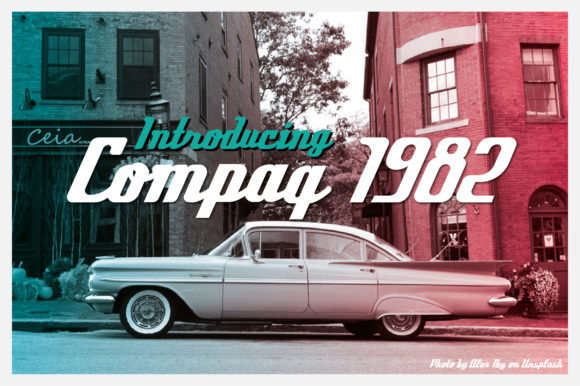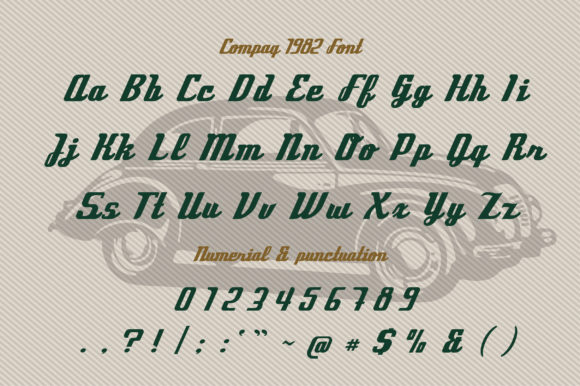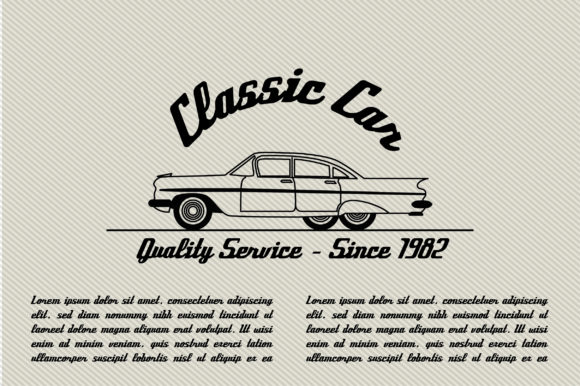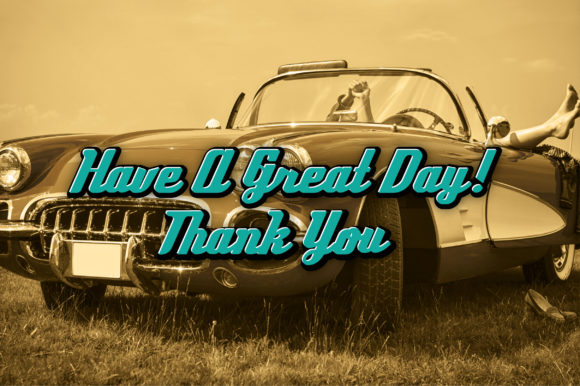
Compaq 1980 Font
About Compaq 1980 Font
Compaq 1980 is a retro font with a funky feel. This classic script radiates nostalgia and will add a dash of personality to any design